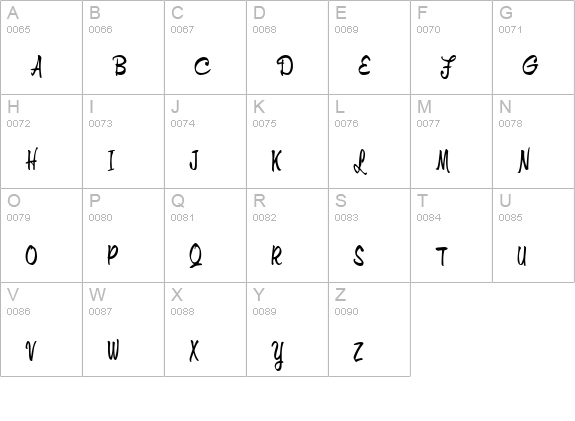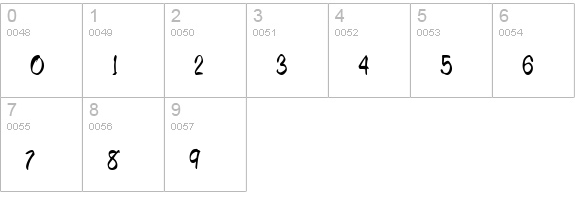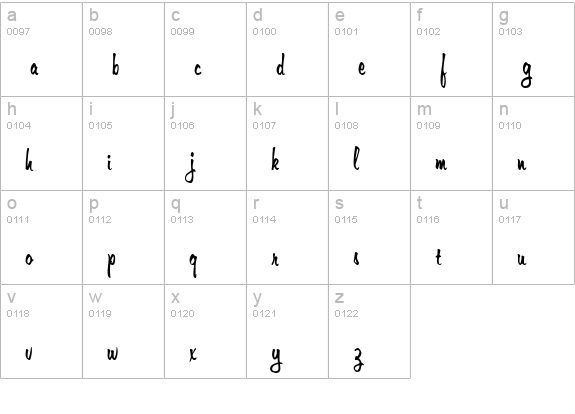
MemoCondensed Normal Font Details
MemoCondensed Normal is the standard, neutral variant in the MemoCondensed typeface family \xE2\x80\x94 well suited to general body text, paragraphs, and standard typographic work.
MemoCondensed Normal font is a sleek and modern typeface that is perfect for a wide range of design projects. With its condensed letterforms and clean lines, this font exudes a contemporary and professional aesthetic. Whether you're creating a logo, designing a website, or crafting marketing materials, MemoCondensed Normal is sure to make your text stand out. The best part? This versatile font is available for free download at FontsMarket.com. Simply head over to the website and add MemoCondensed Normal to your font collection without any cost. Don't miss out on this opportunity to enhance your designs with a stylish and sophisticated typeface that is both functional and visually appealing. Download MemoCondensed Normal today and elevate your typography game!